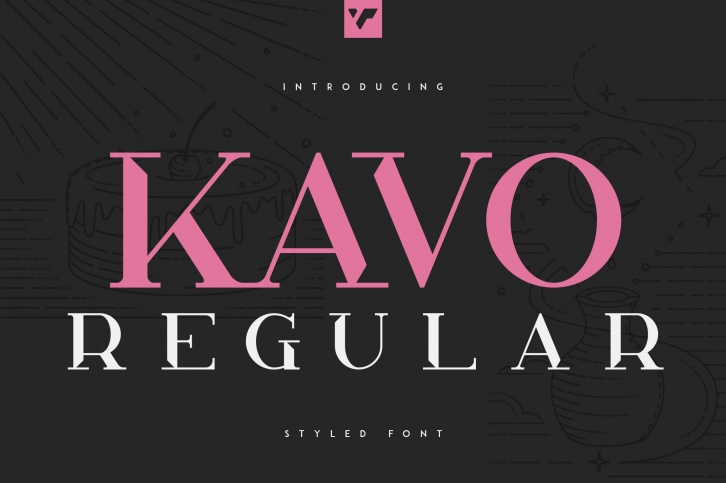
Kavo Styled Regular is a trendy and unique font with an authentic style. It was designed by VPcreativeshop and it's a great choice for creative people who need such a font. It was released on November 13, 2020 and the file size is 5.5 MB. Kavo Styled Regular will add an organic vibe to any design idea!